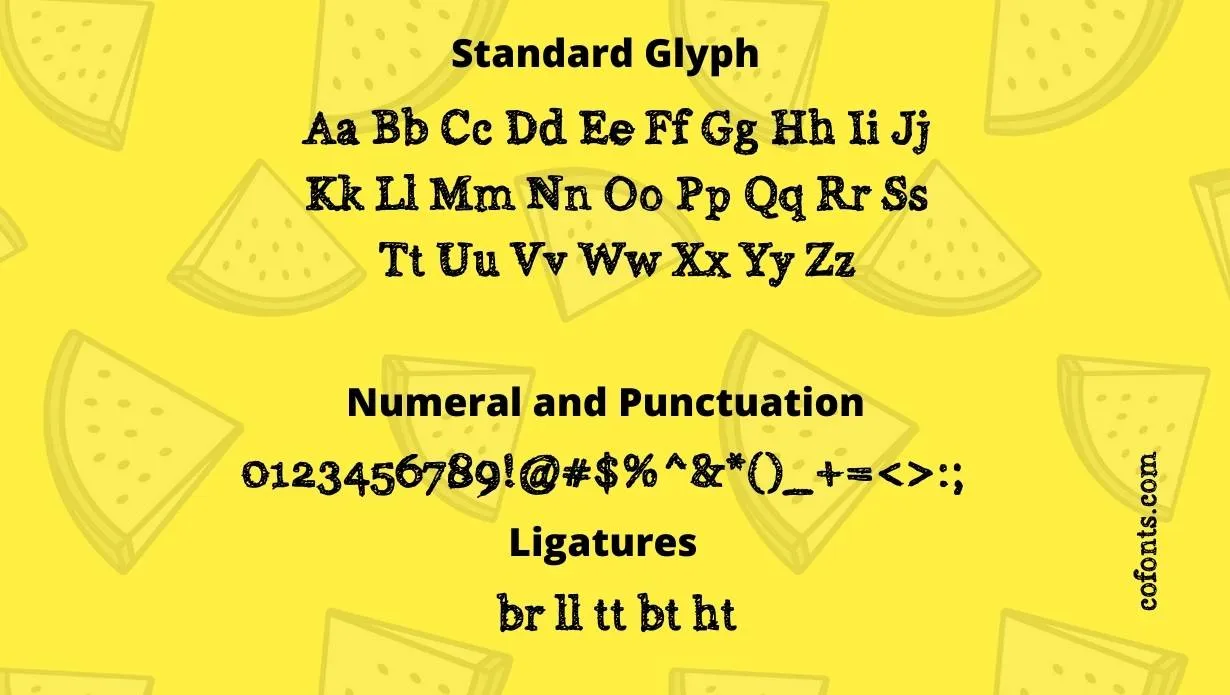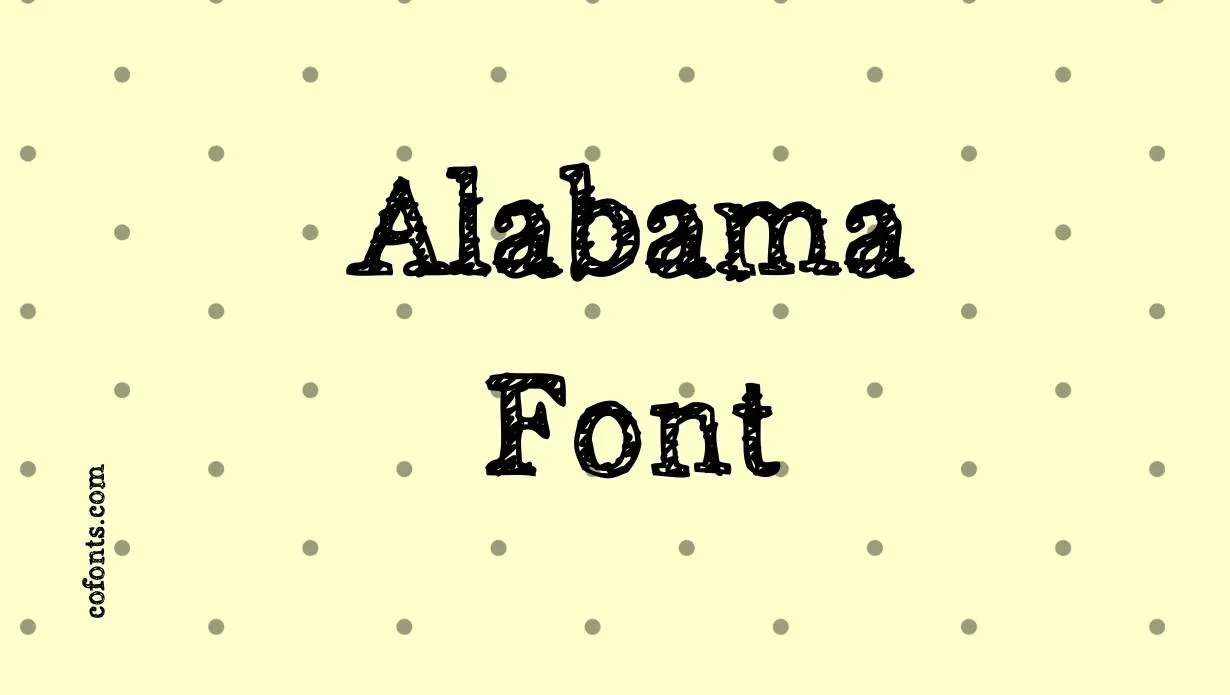
About Alabama Font Free Download
Alabama Font Free Download is a modern typeface available in multiple variants and styles.
- Alabama Font Regular
- Alabama Font Bold
- Alabama Font Italic